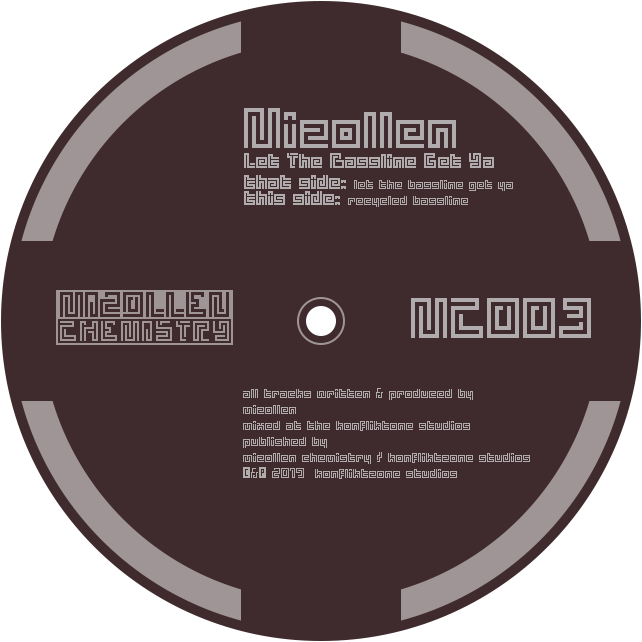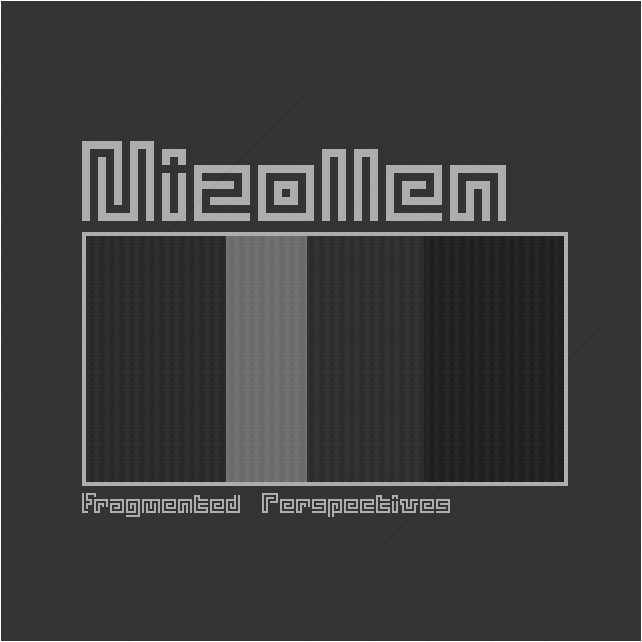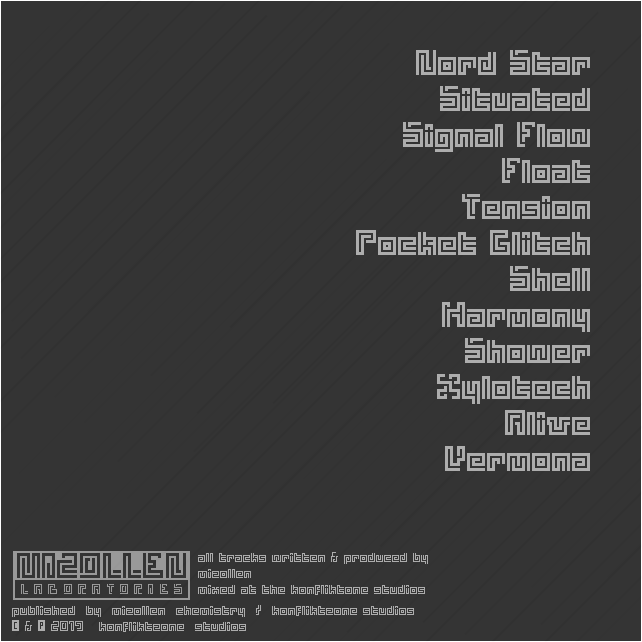
Now fully kerned as well...
@STF The (R) looks like (P)
@ Se7en: No, it really is the phonographic copyright ℗ symbol and not the registered trademark ® symbol.  ;)
@STF Oh... I thought it was in the ®...
Love it.
groovy
PUZZLE